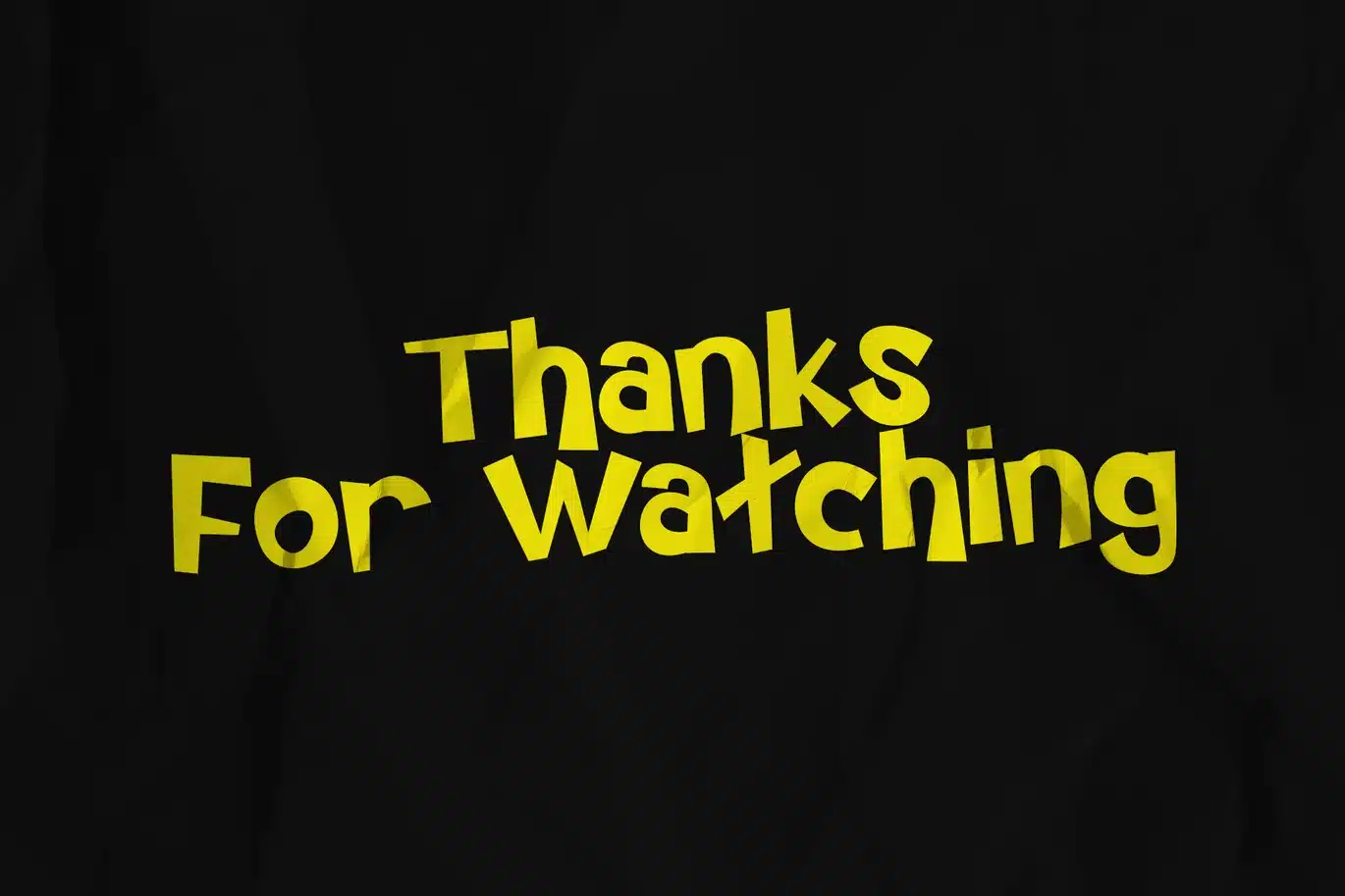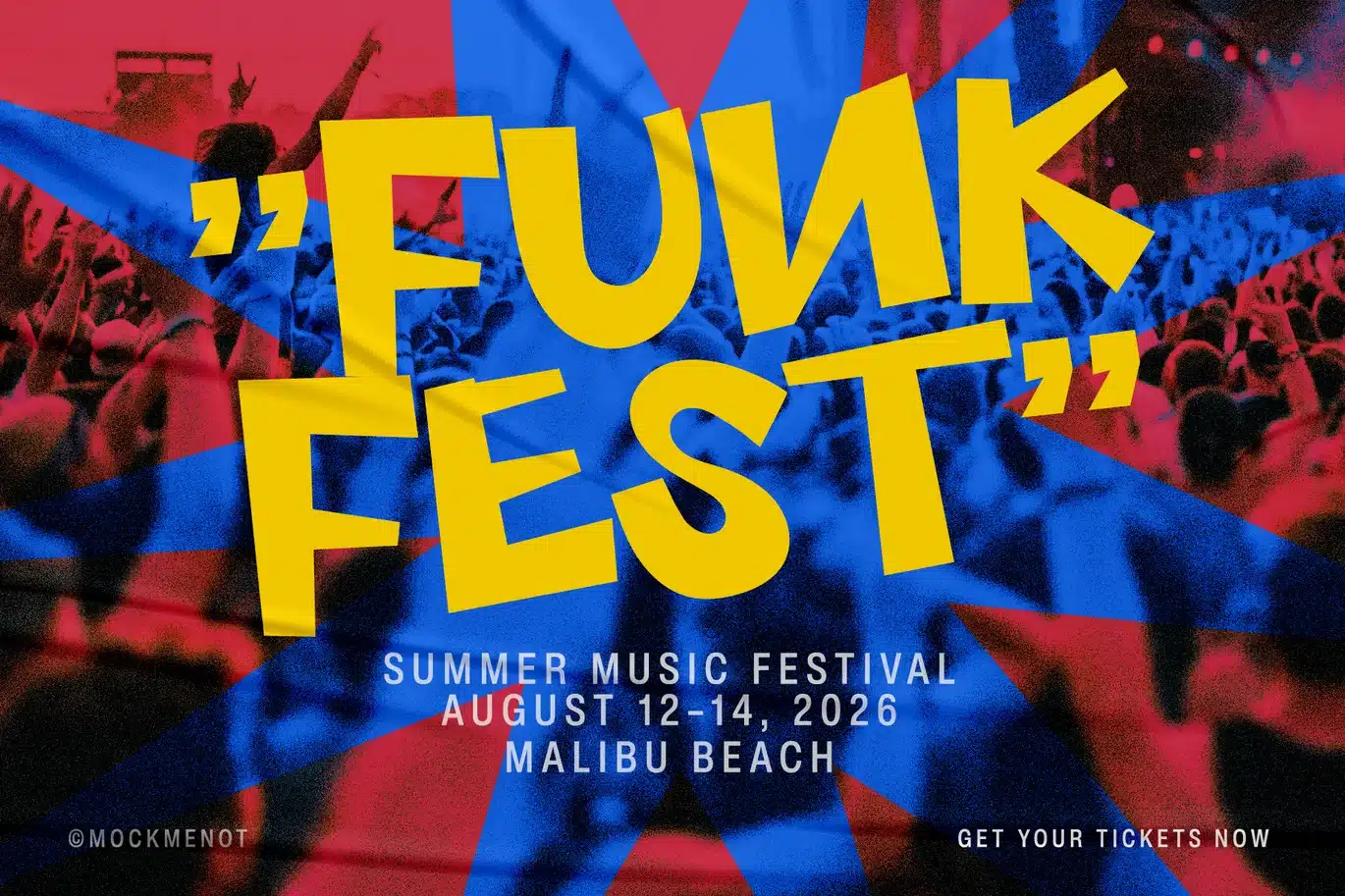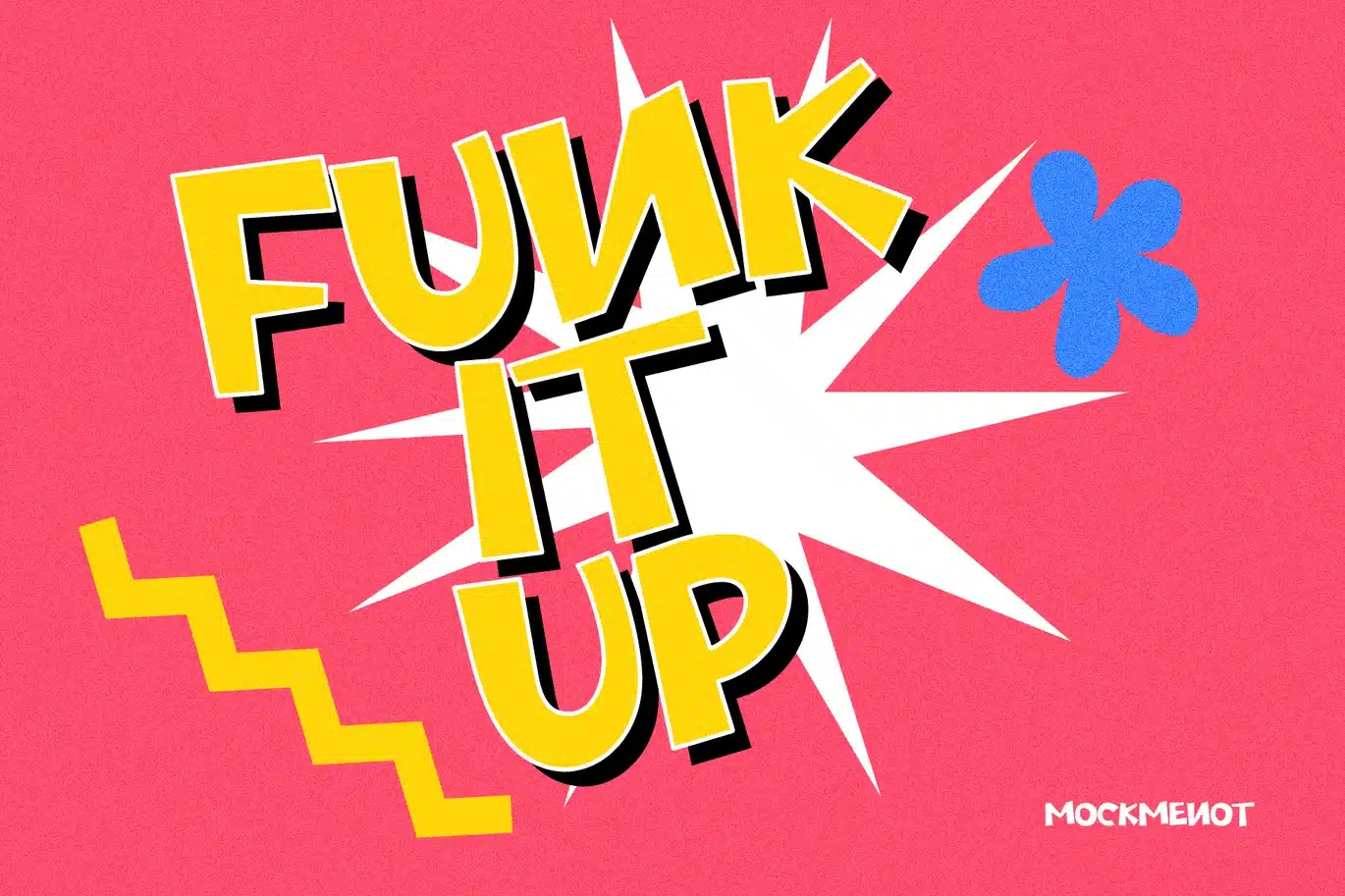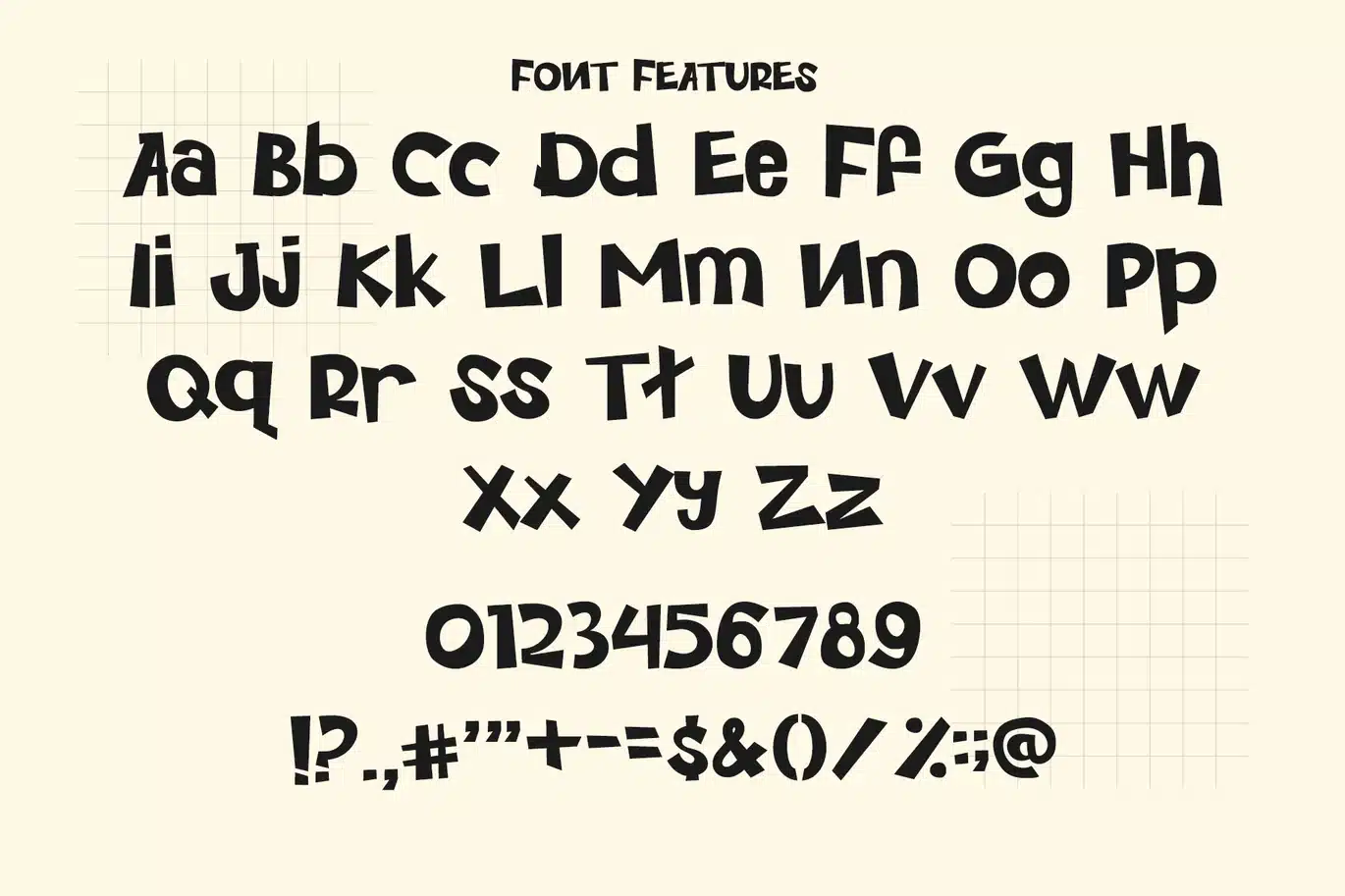
Funk Yeah – Playful Funky Font
Funk Yeah is a bold, playful, and energetic display font designed to make your designs stand out instantly. With its quirky shapes and funky personality, this typeface is perfect for creating eye-catching visuals that feel fun, modern, and full of character.
Whether you're working on branding, posters, packaging, or social media content, Funk Yeah adds a vibrant and expressive touch that grabs attention and leaves a lasting impression.
- Uppercase and Lowercase
- Numeral & Punctuation